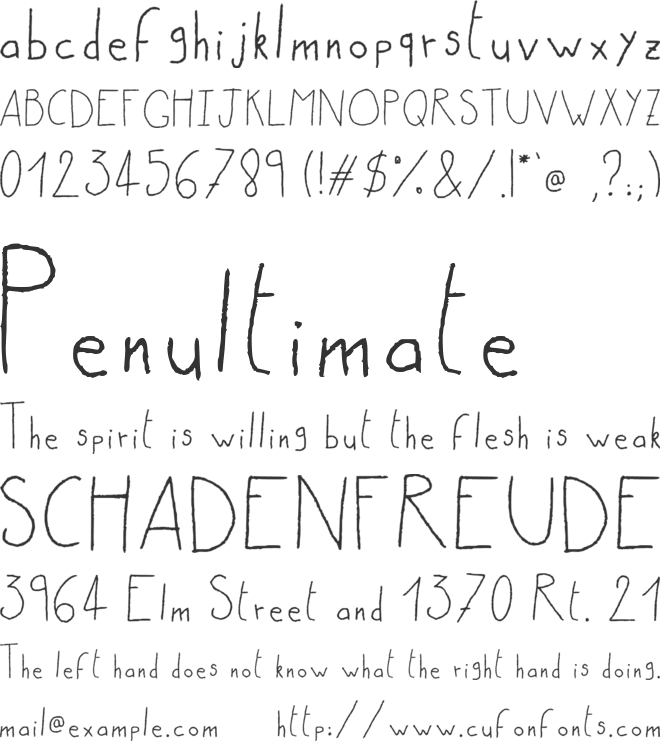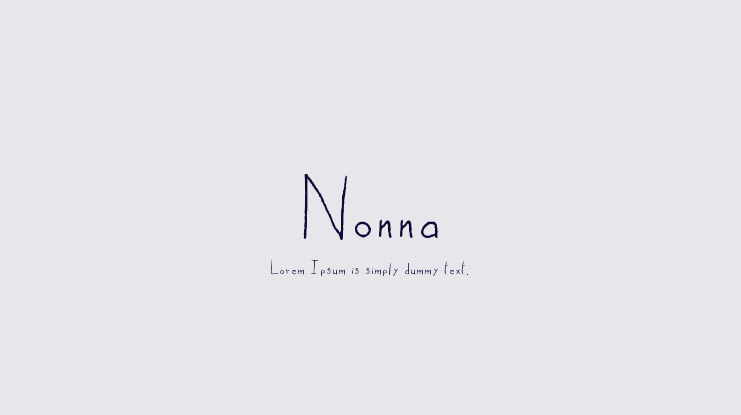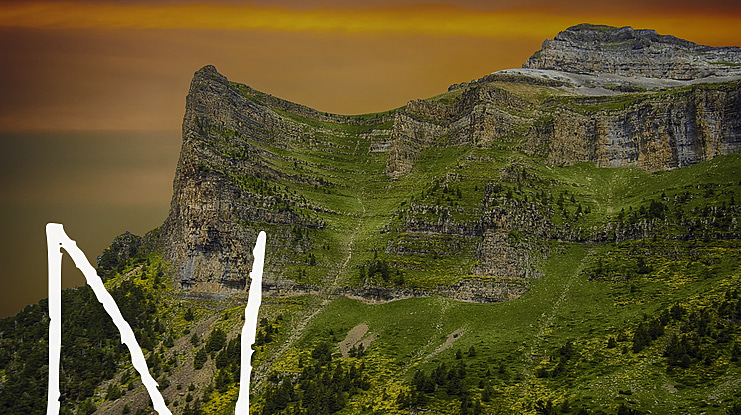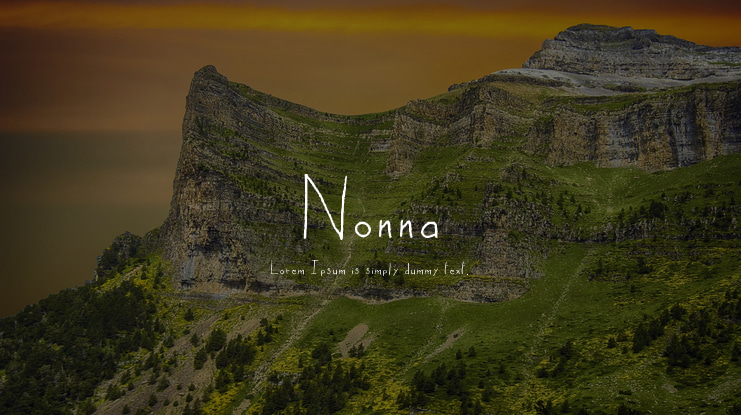
Nonna Font
Nonna is your Grandmas favorite font. Get inspired by its cozy handmade feel. This font will add a "handmade" touch to your creative designs !